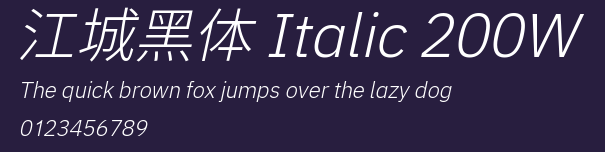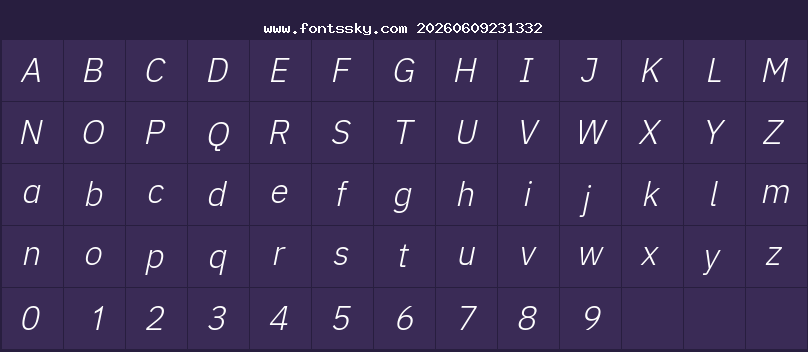
江城黑体 Italic 200W Preview
• Designer: LiuPeng
About 江城黑体 Italic 200W.ttf
江城黑体 Italic 200W.ttf is a modern, elegant sans-serif font designed for ultimate readability and visual harmony. Perfect for branding, headlines, web design, and print materials.